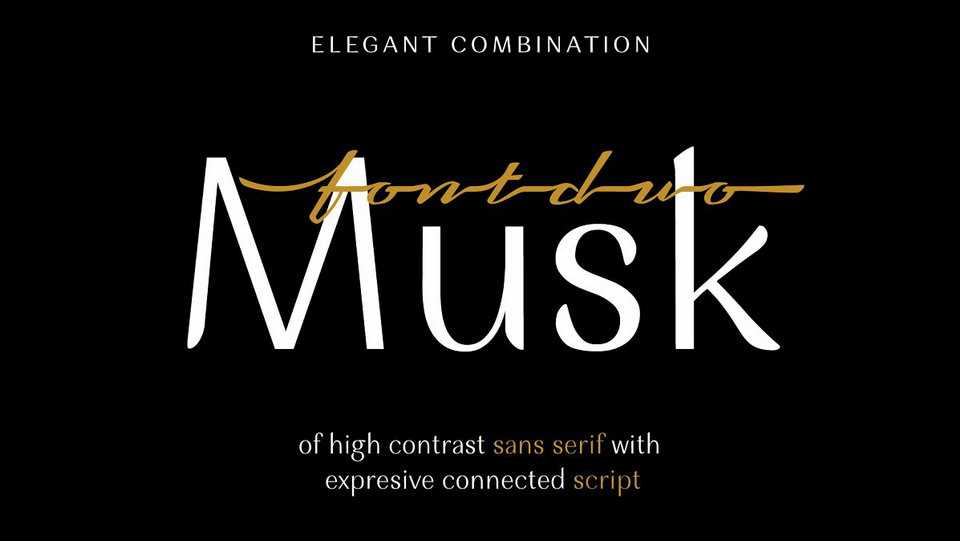
Download Musk font, an elegant form of high contrast sans serif. Each glyphs shown an unique variation of forms, especially the terminals in regards to achieve legibility and readability.